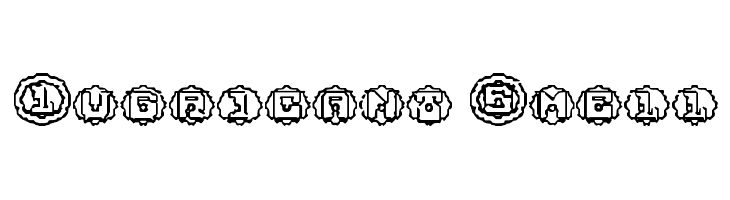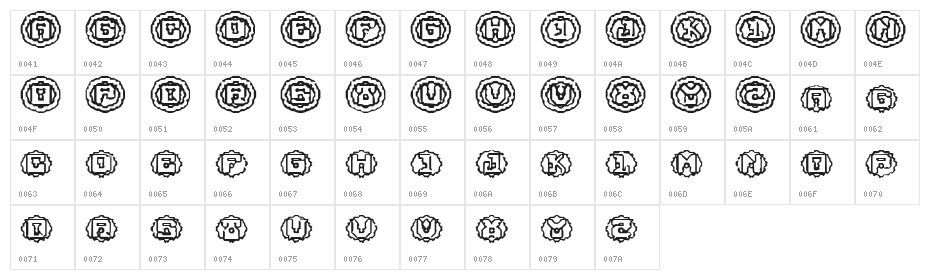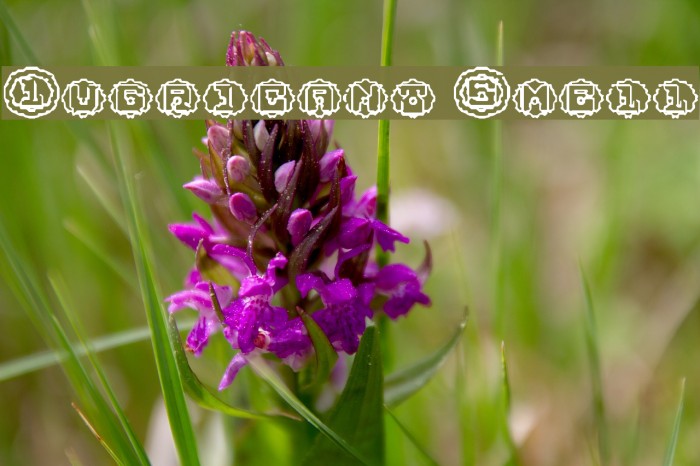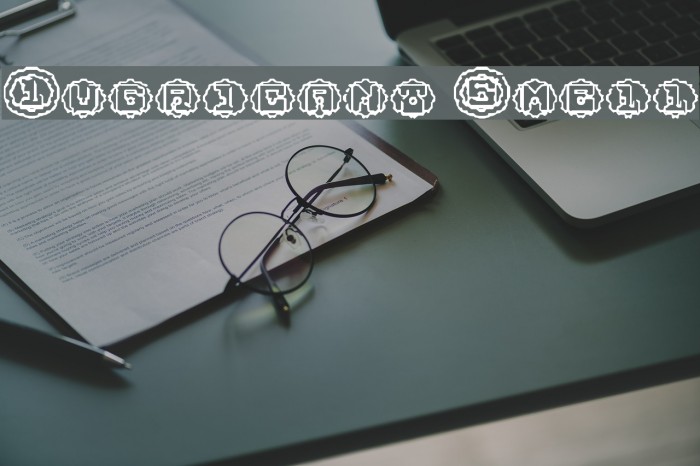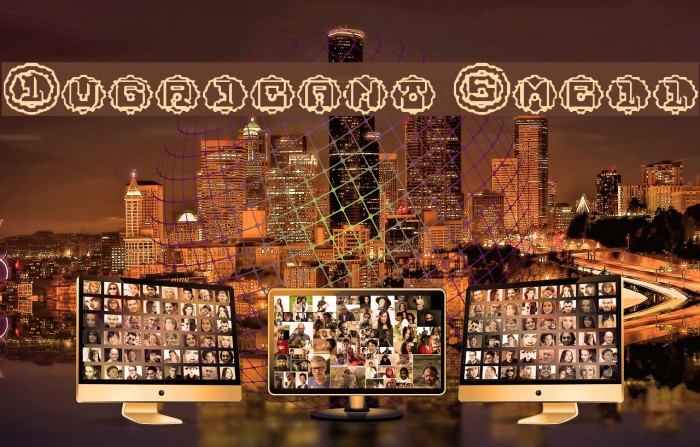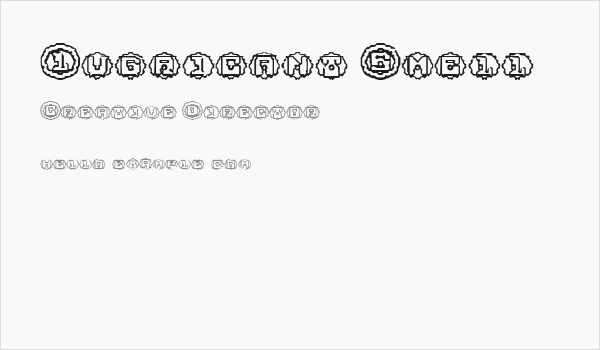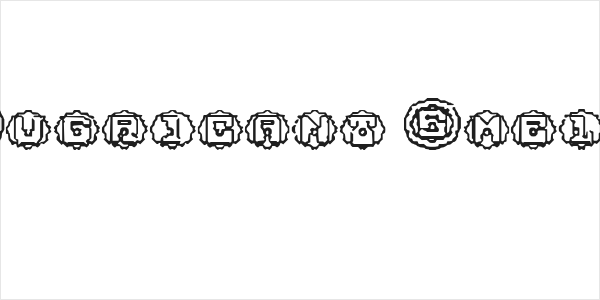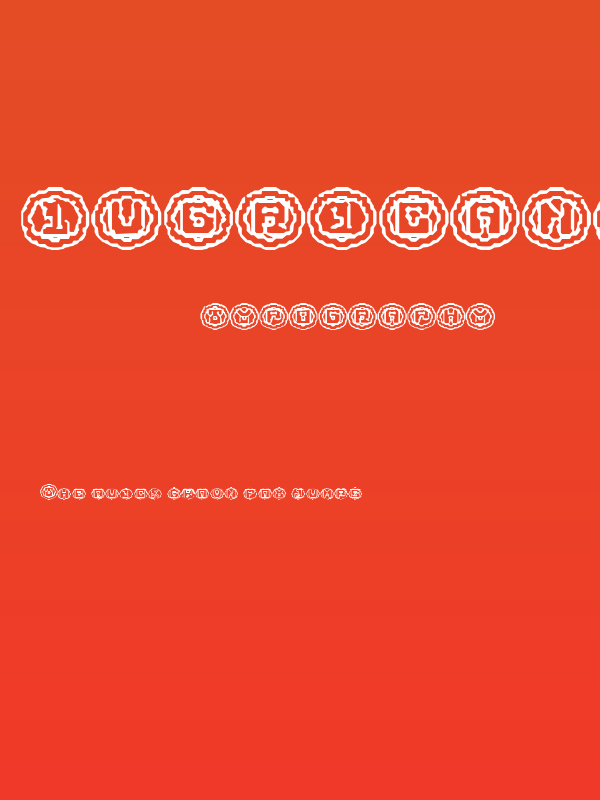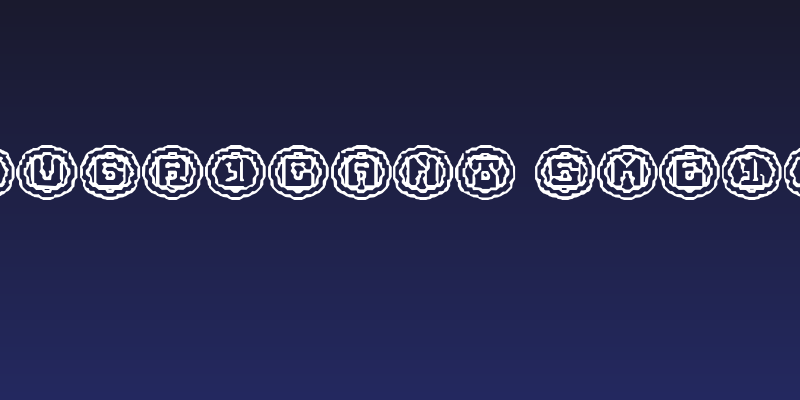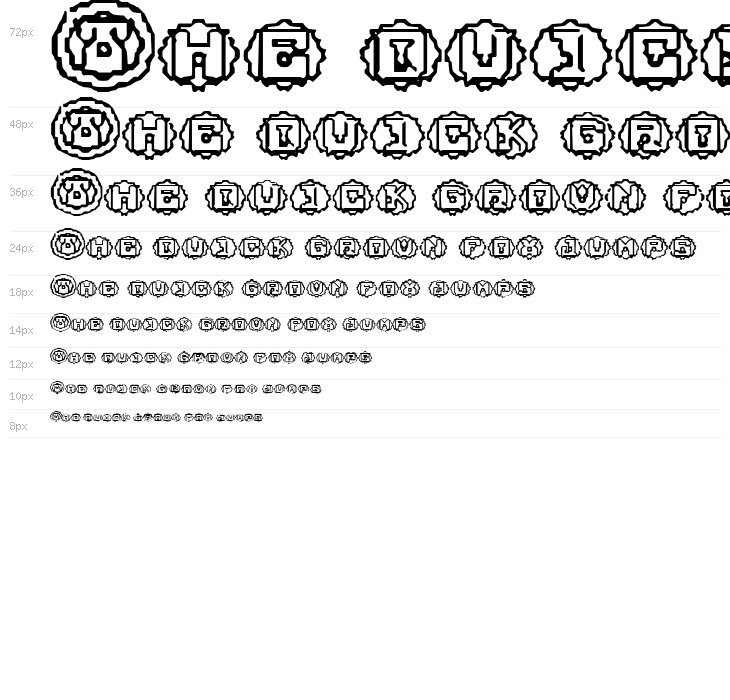
Lubricant Smell Font
Lubricant Smell Description
This font features a unique design where each character is enclosed within a circular, gear-like border, giving it an industrial and mechanical aesthetic. The characters themselves are bold and angular, with a futuristic feel. The combination of the circular border and the angular letters creates a striking contrast, making each character stand out distinctly. The font is highly decorative and would be suitable for projects that require a strong visual impact. The style is consistent across uppercase, lowercase, and numeric characters, maintaining the same boldness and angularity throughout. Special characters are also included, following the same design principles, ensuring a cohesive look across all elements.
| Overall Style | Industrial, Futuristic, Decorative |
| Use Case | Logos, Posters, Branding |
| Proposed Projects | Ideal for branding, logos, posters, and any design requiring a strong industrial or mechanical theme. |